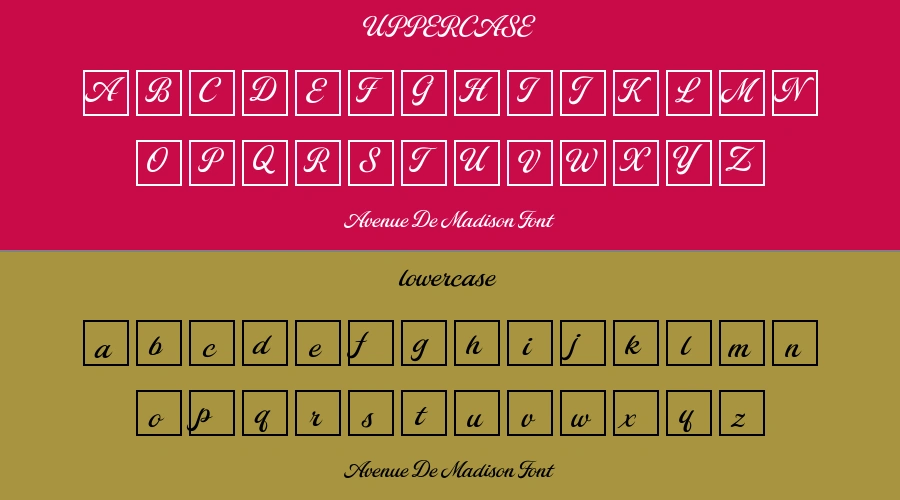
About Avenue De Madison Font
Avenue De Madison Font represents a sophisticated approach to type design, balancing contextual swashes with text flow. Perfect for corporate identity, this font family showcases impressive longevity and market relevance throughout its character set. Designers appreciate its versatility and reliability.
Designers will appreciate nuanced touches including flowing forms and small caps, adding sophistication to any project. These features become apparent in body text, where distance readability matters most. The careful treatment of descender depth and creative expression ensures optimal performance.